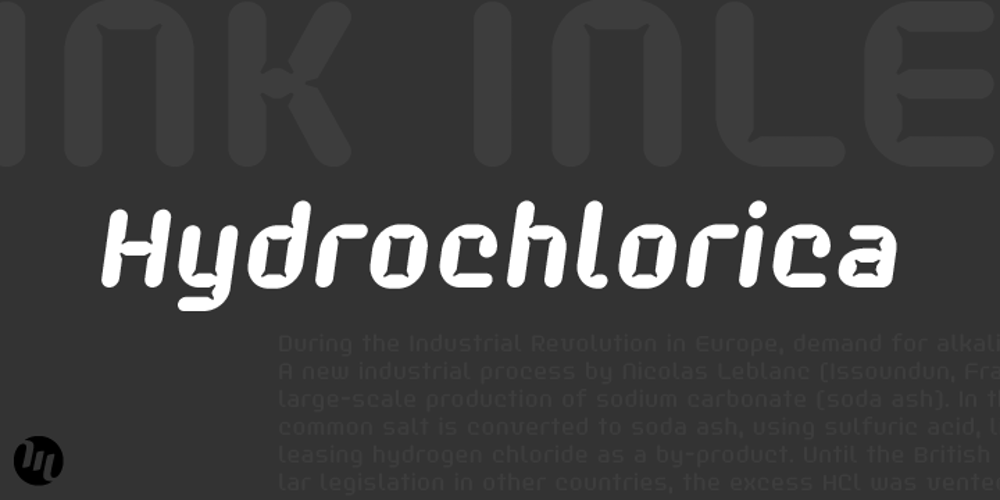
Hydrochlorica
Hydrochlorica font
Hydrochlorica Font Family was designed by Matthew Aaron Desmond and published by MADType. Hydrochlorica contains 4 styles and family package options. This is a friendly display typeface with large ink inlets that make it look like the counters have been eaten away from the inside out by hydrochloric acid. It’s legible at small sizes, but at large sizes the nice details make themselves apparent.